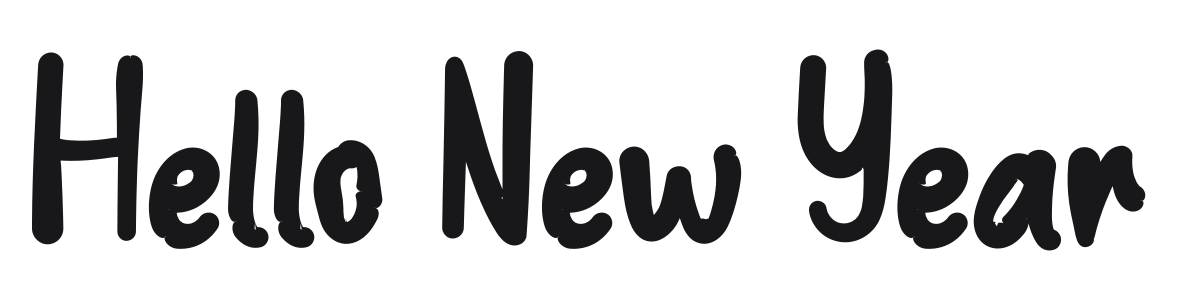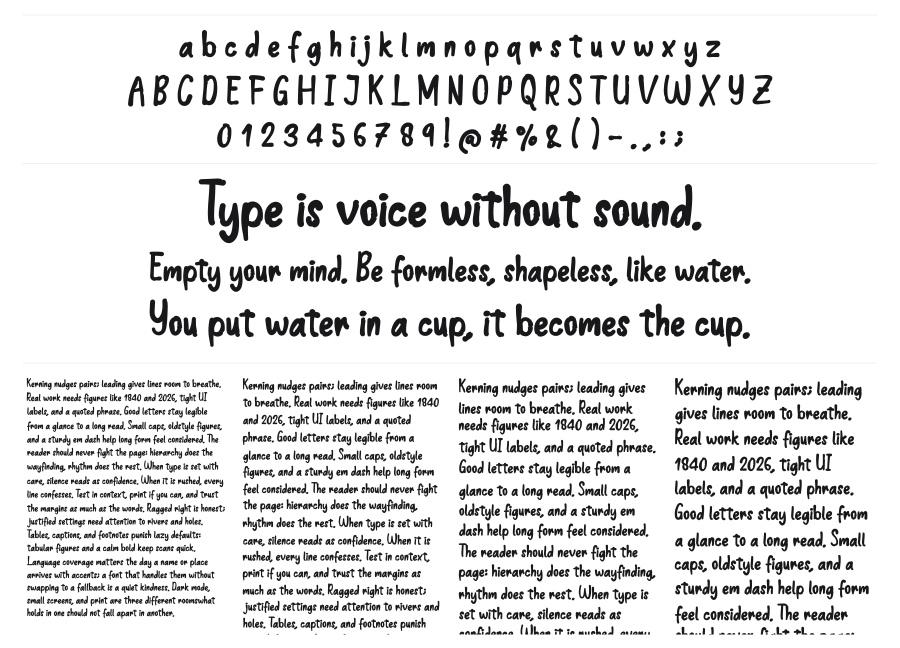
Hello New Year
Hello New Year is a bold, casual handwritten font with thick rounded strokes and a lively, brush-influenced texture. The chunky, bouncy characters carry a festive warmth that works well across invitations, social media graphics, and packaging. It reads as spontaneous without sacrificing legibility at display sizes.